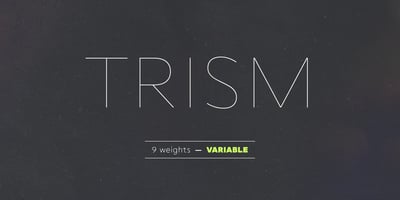
Trism
Trism font
Trism Font Family was designed by Kristof Van Proeyen and published by Punch. Trism contains 10 styles and family package options. Trism is a balance of text, rhythm, and light. Designed with spacious clarity and a contemporary edge, this sans-serif family offers 9 distinct styles or the flexibility of a variable font, allowing seamless adaptation across the weights that you need in your designs.At its core, Trism is built for fluid readability and visual impact, with the added versatility of subtle flared stems for a touch of elegance—or a sleek, straight-stem alternative for a sharper, modern aesthetic. Whether in motion or at rest, Trism brings structure, rhythm, and brilliance to any design. Define your voice, explore your “TextPrism” with Trism.